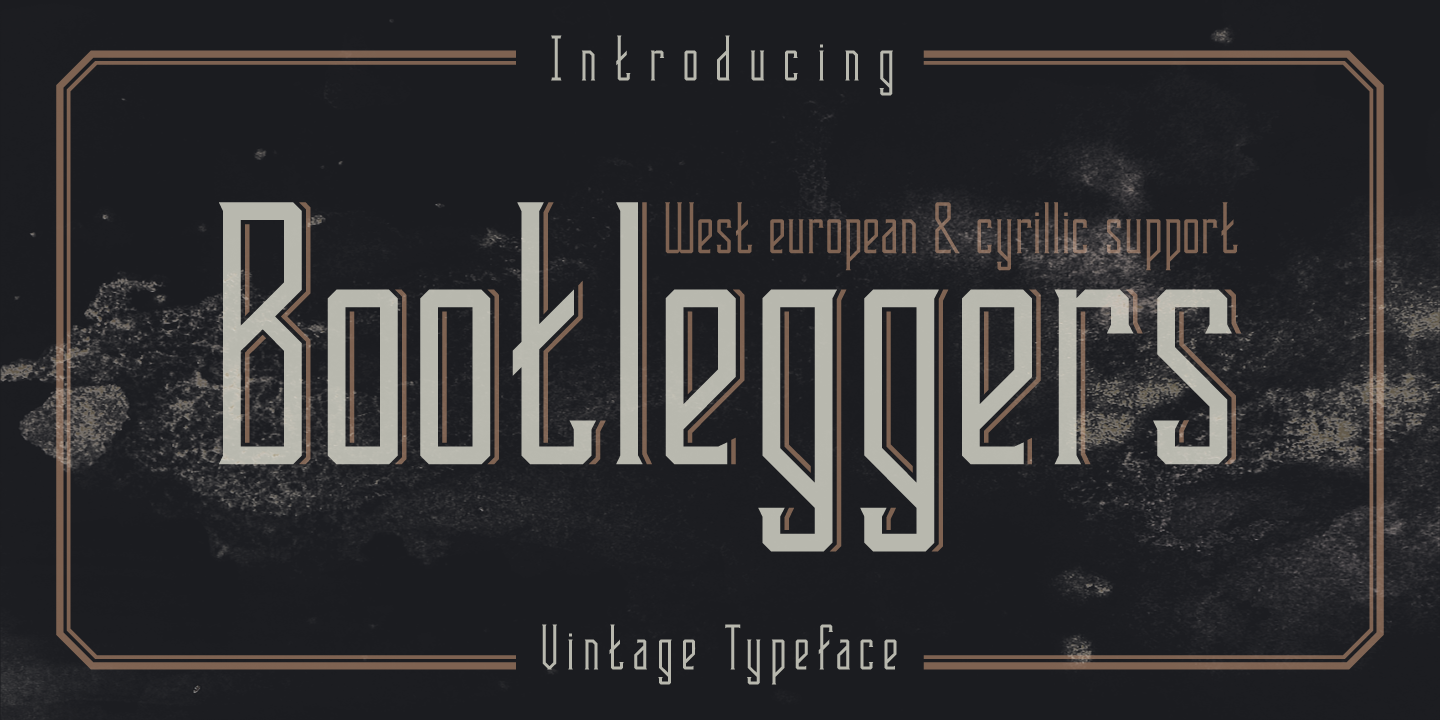
Bootleggers Font Free Download is a bold, vintage-inspired display typeface that captures the rugged charm of the Prohibition era. Featuring strong letterforms, decorative serifs, and a classic, old-world aesthetic, Bootleggers Font is perfect for whiskey labels, bar logos, vintage posters, apparel design, packaging, and event flyers. Its retro flair makes it ideal for projects that aim to evoke nostalgia, authenticity, and timeless style.
Whether you're crafting vintage branding, bold merchandise, or promotional materials with an old-school vibe, Bootleggers Font adds character and authenticity. Its eye-catching style stands out across both print and digital platforms, making your message memorable.